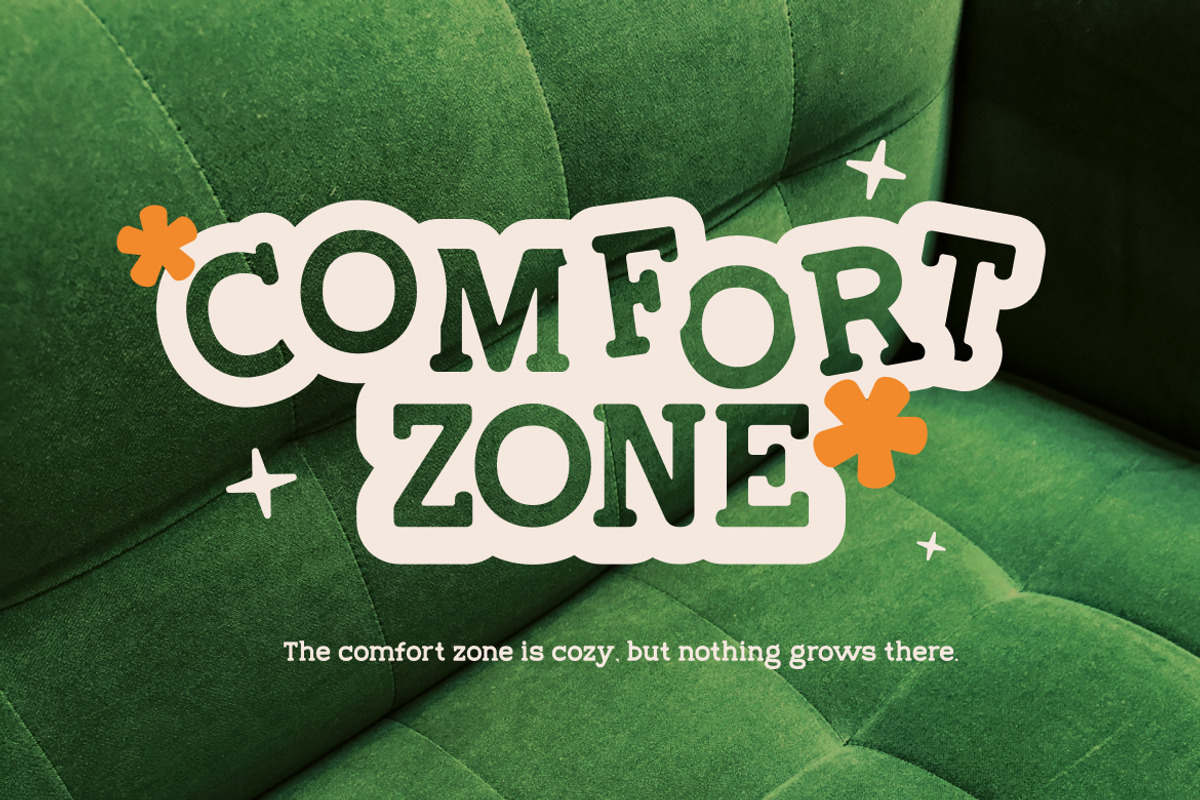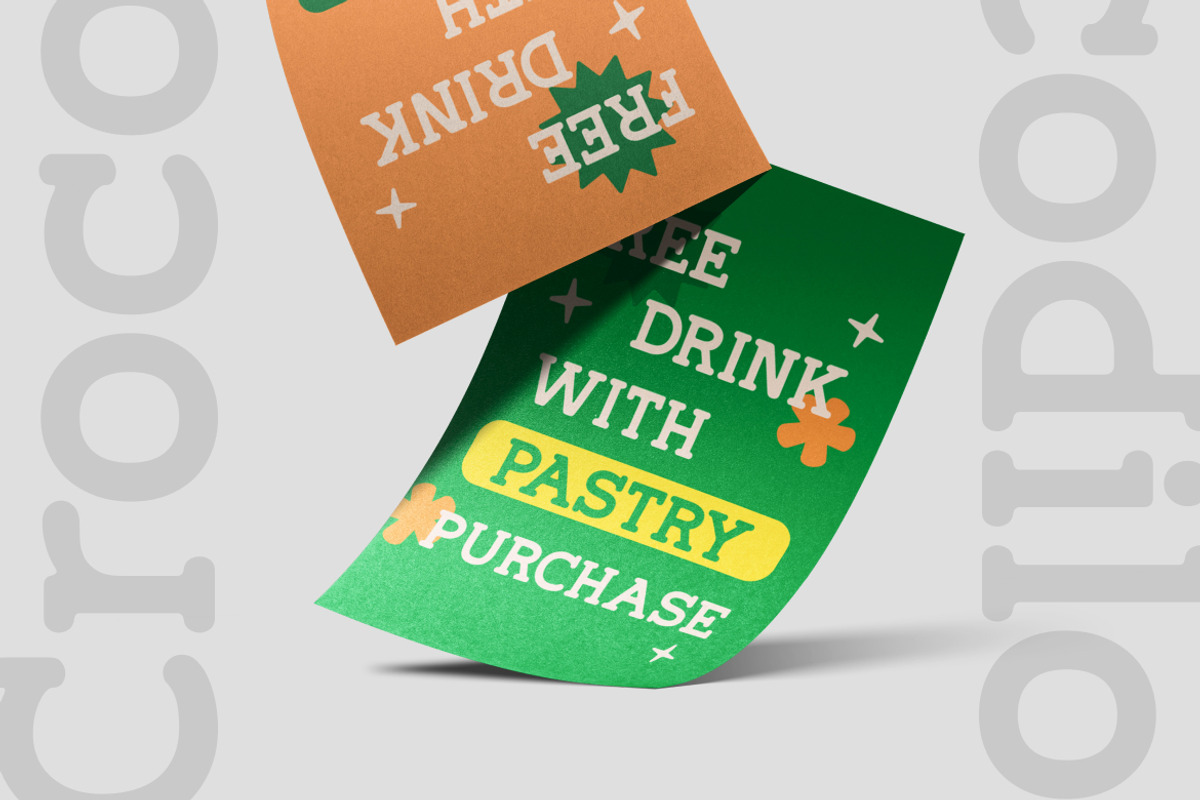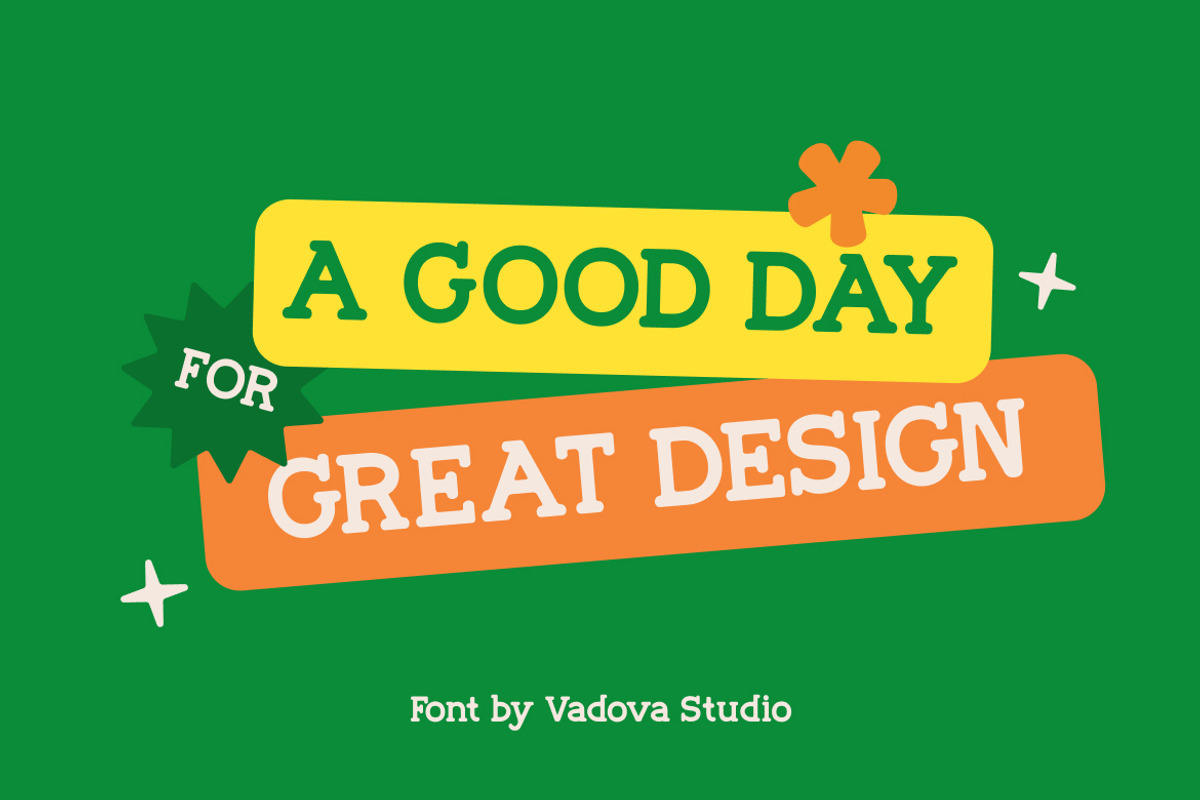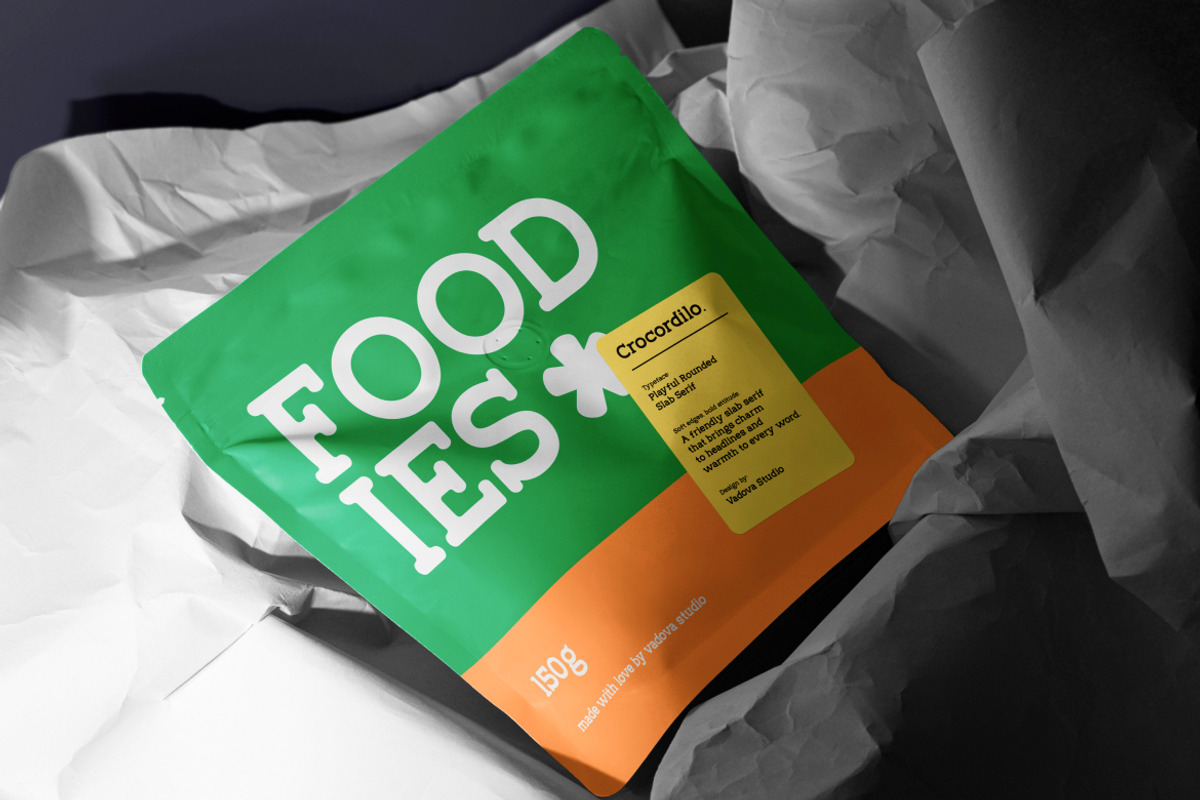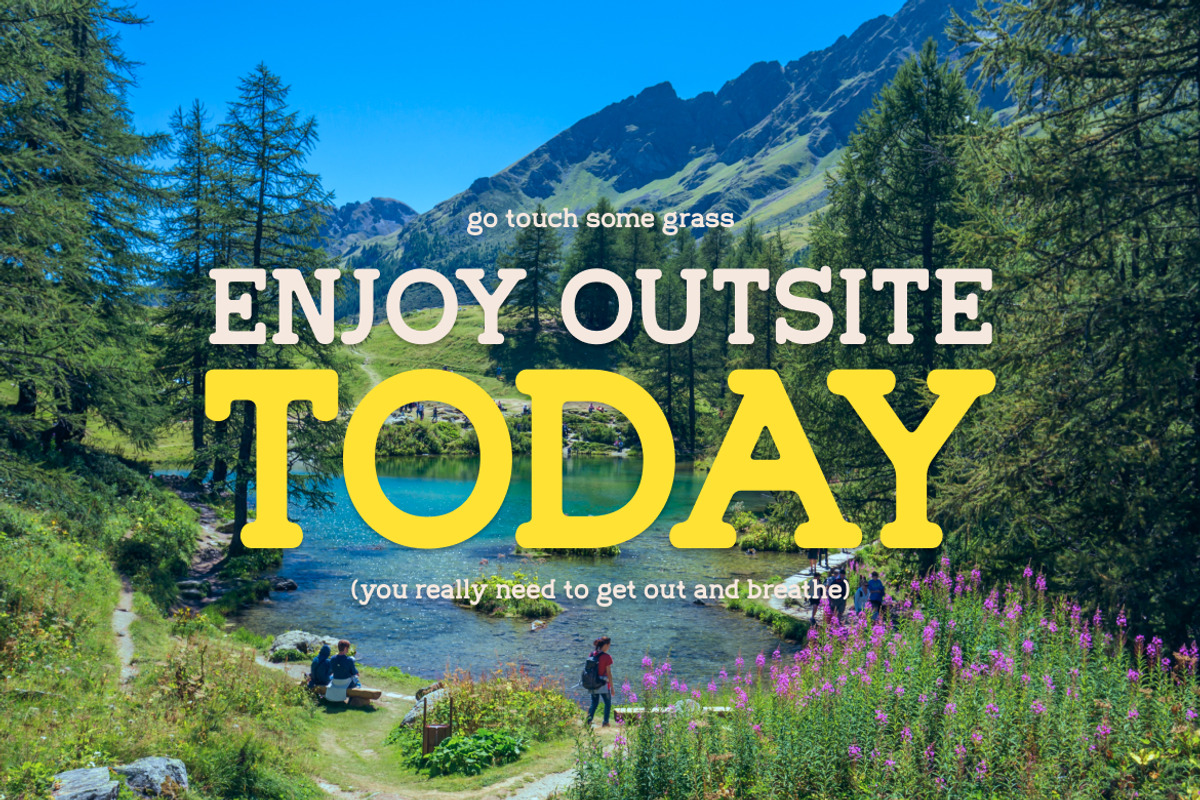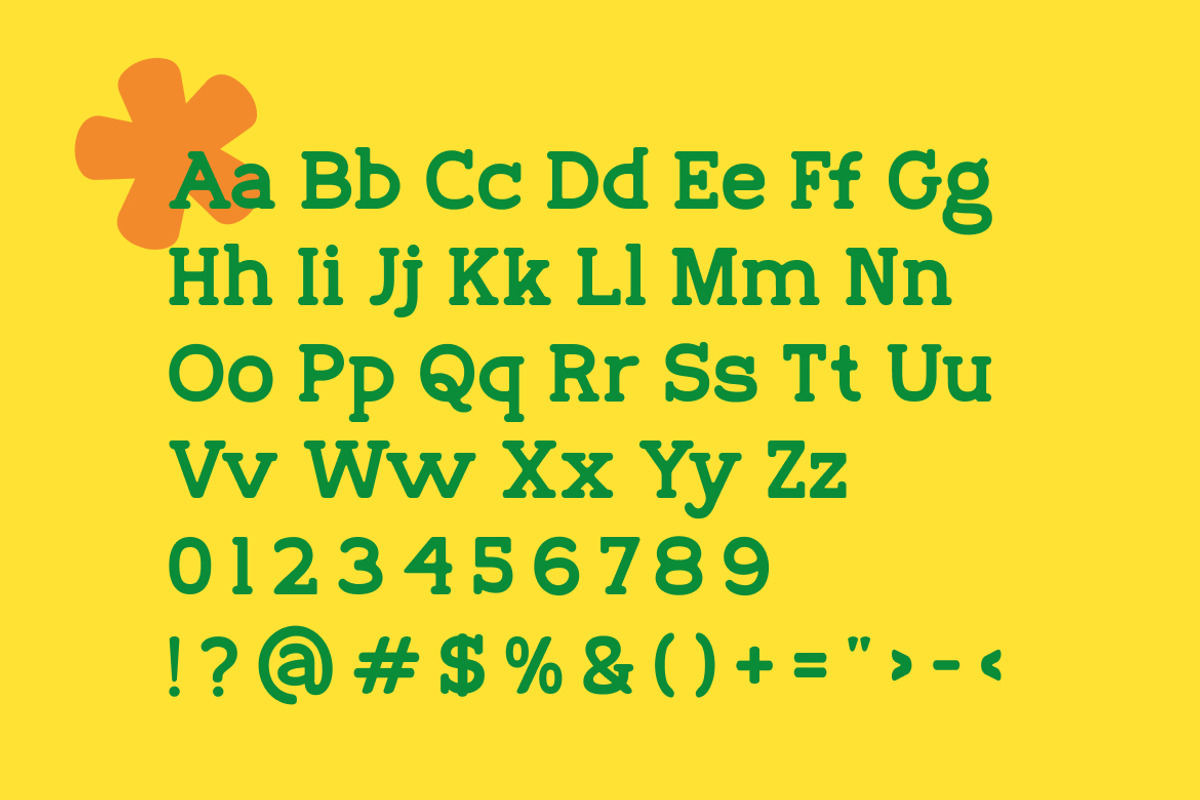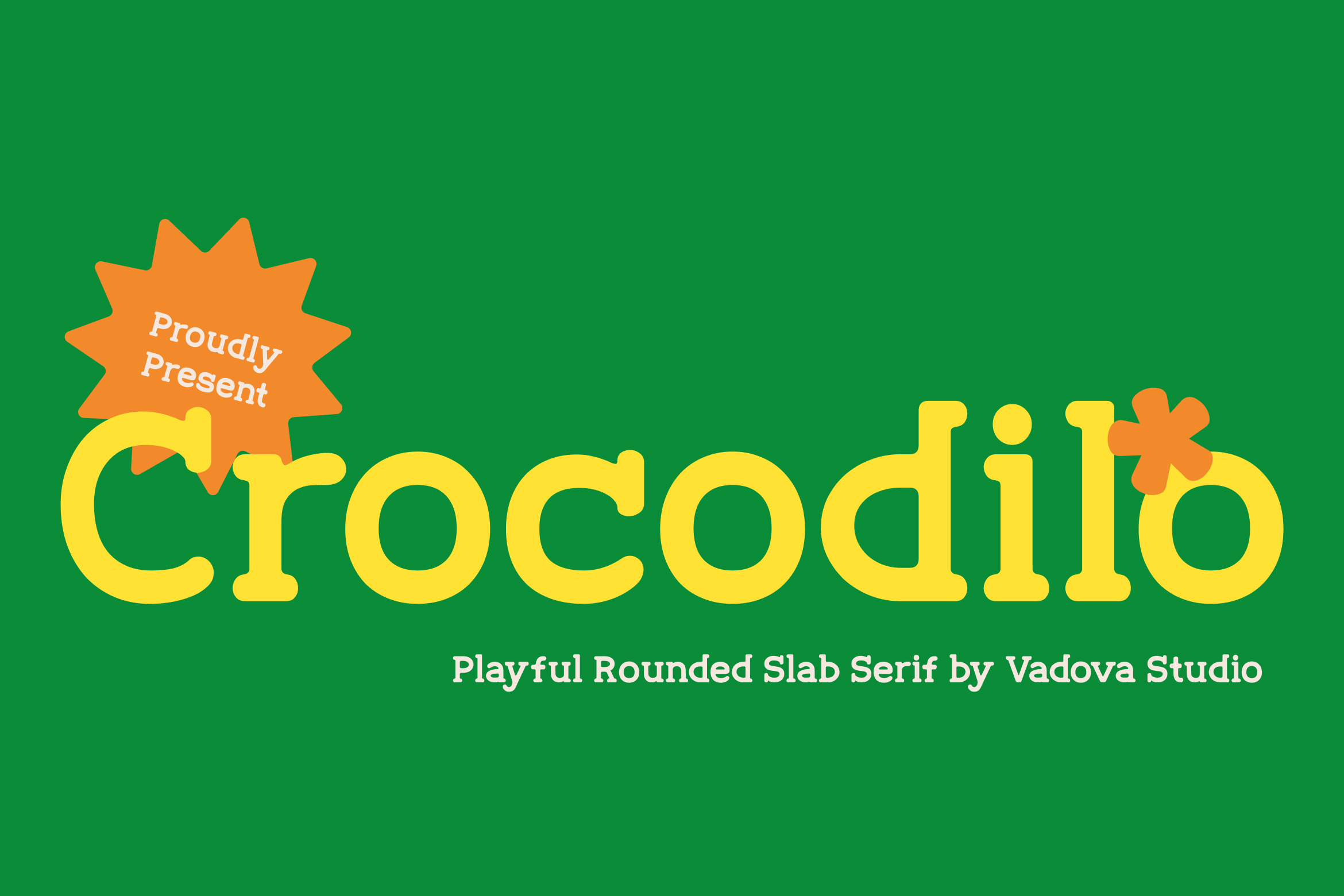
Crocodilo Rounded Slab Serif Font
Crocodilo is a playful rounded slab serif font designed with soft curves, bold weight, and friendly character shapes. The font includes uppercase and lowercase letters, numerals, punctuation, and basic symbols, making it suitable for a wide range of creative projects. Its cheerful and approachable style works well for children-oriented designs, branding, packaging, posters, logos, and social media visuals.
This font is highly relevant for designers and creatives who need a friendly, playful, and approachable visual tone. With its rounded slab serif structure and cheerful character shapes, this typeface works exceptionally well for children-focused products, educational materials, and family-oriented branding.
- Playful rounded slab serif design with soft proportions
- Smooth curves and softened edges for a warm appearance
- Bold letterforms with clear, readable structure
- Consistent stroke weight for visual harmony
- Comfortable spacing for display-focused readability
- Children and playful brand identities
- Kids-focused products and educational materials
- Packaging and label design with a fun character
- Posters, greeting cards, and event visuals
- Social media content and creative marketing assets